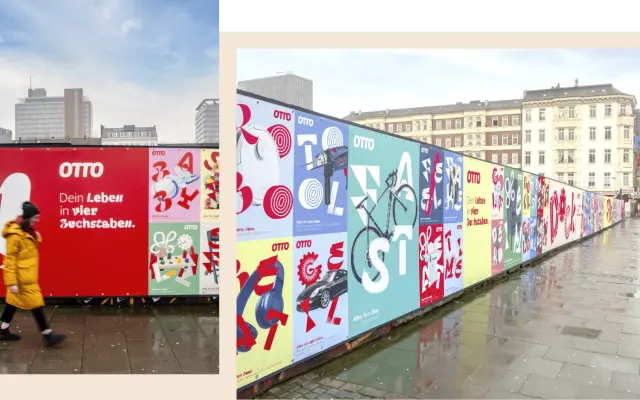
OTTO Play
A bespoke custom typeface for German retailer OTTO in which every letter of the alphabet carries its own distinct stylistic treatment, mixed automatically via OpenType rules based on German letter frequency.
Designed by Henning Skibbe at Character Type in partnership with brand agency Mutabor, OTTO Play blends a stable base of OTTO Sans with a new expressive alphabet where each letter is assigned one of four design tonalities. An OpenType script automates the substitution of glyphs based on German letter and syllable frequency, ensuring a consistently varied but coherent typographic result without manual intervention. The project won multiple ADC awards, a Red Dot best-of-the-best, and a Corporate Design Award.
A bespoke display typeface in which each letter of the alphabet carries a distinct stylistic treatment drawn from four design tonalities, making it a multi-style display system rather than a conventional type family.